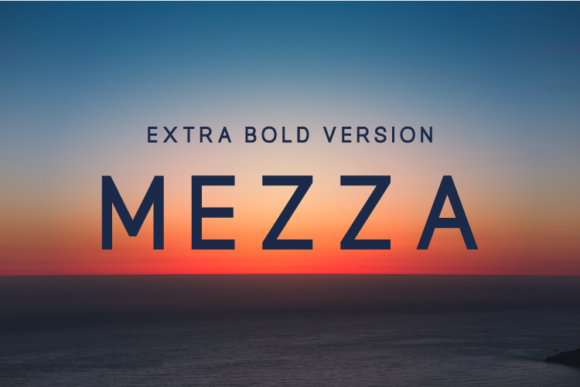
Mezza Extra Bold Font
Download Mezza Extra Bold Font for free! Created by Huntype and published by Peter Travis, this sans serif font family is perfect for adding a unique touch to your designs.
Introducing Mezza Extra Bold, the font that embodies romance, timelessness, and minimalist elegance. This captivating all-caps sans serif font will add a touch of sophistication and charm to any creative endeavor.
Mezza's clean lines and subtle curves evoke a sense of understated luxury, making it the perfect choice for magazine layouts that demand attention. Its versatility extends to invitations, where it can convey the excitement and anticipation of a special occasion. As headers, Mezza commands attention, drawing readers into your text with its bold presence. Even in large-scale artworks, its minimalist appeal allows your message to shine through, creating a lasting impression.
With Mezza Extra Bold, you'll elevate your projects to new heights of style and sophistication. Its timeless design transcends trends, ensuring that your creations will remain visually appealing for years to come. Whether you're a seasoned designer or just starting out, Mezza is the font that will unlock your creative potential and make your words come alive.